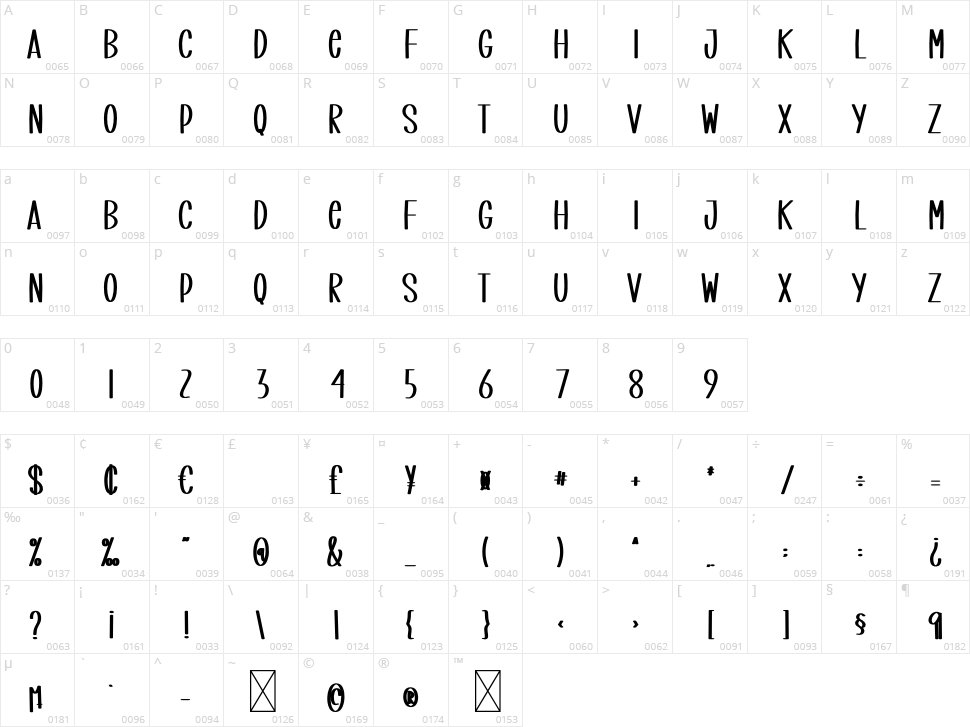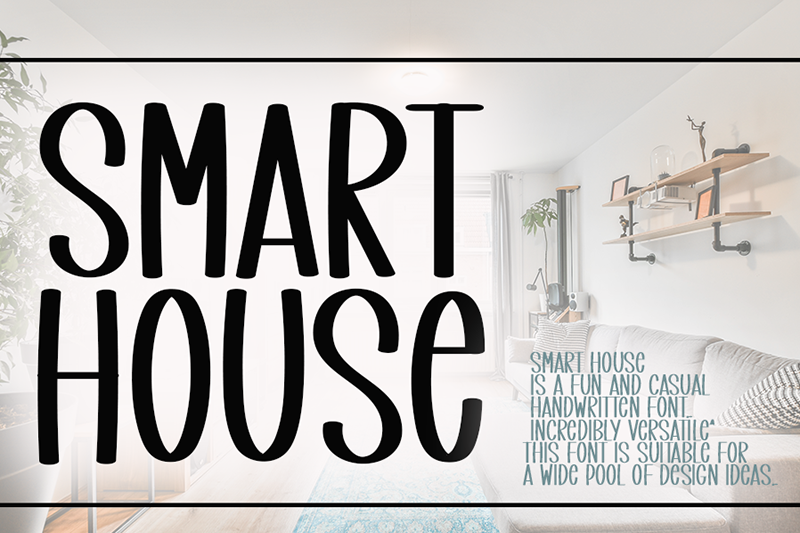
Smart House
This font retains a classy calligraphic influence while feeling contemporary and fresh. This versatility will attract a wide range of creative ideas, from letterheads and titles to stationery.